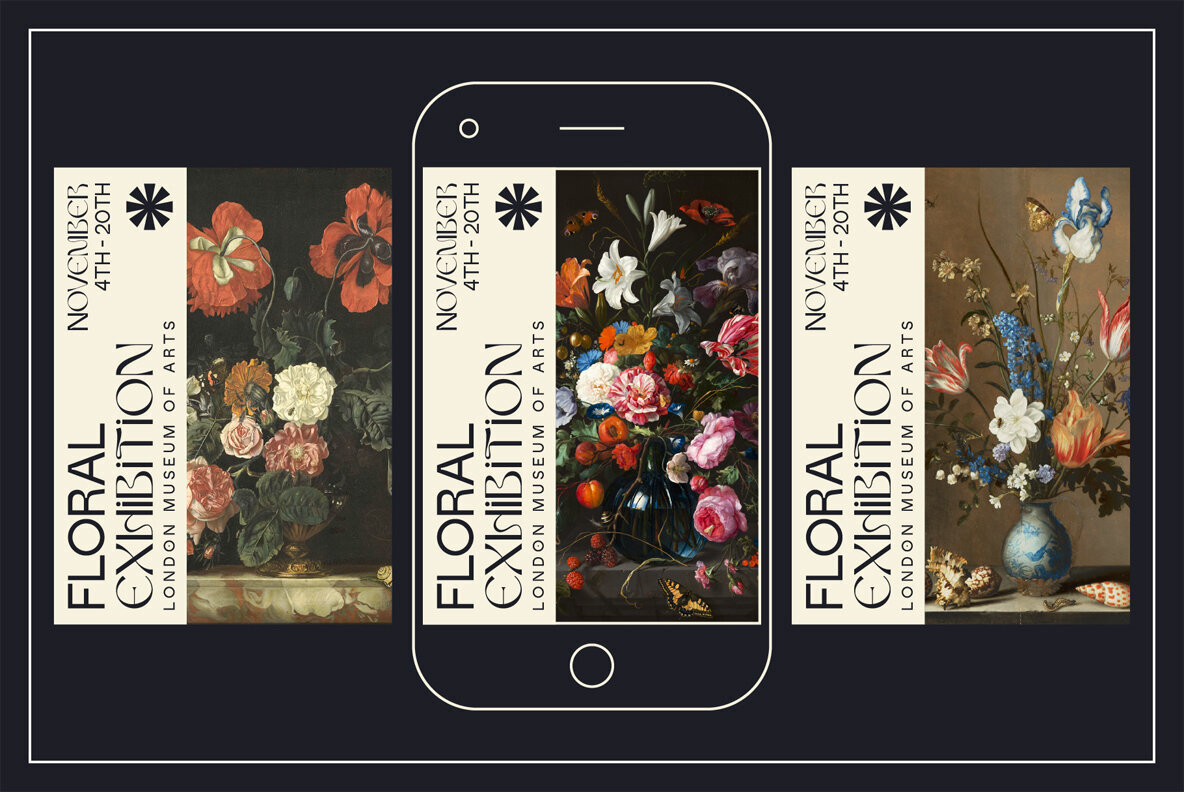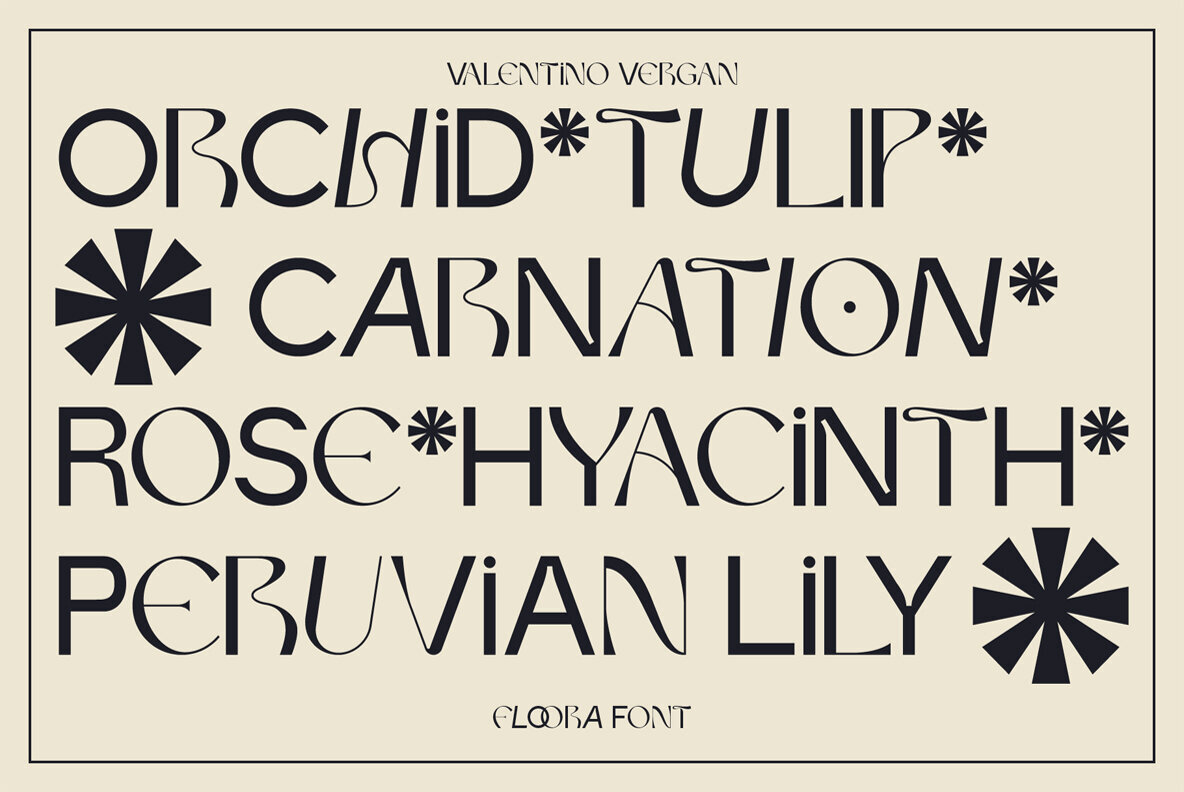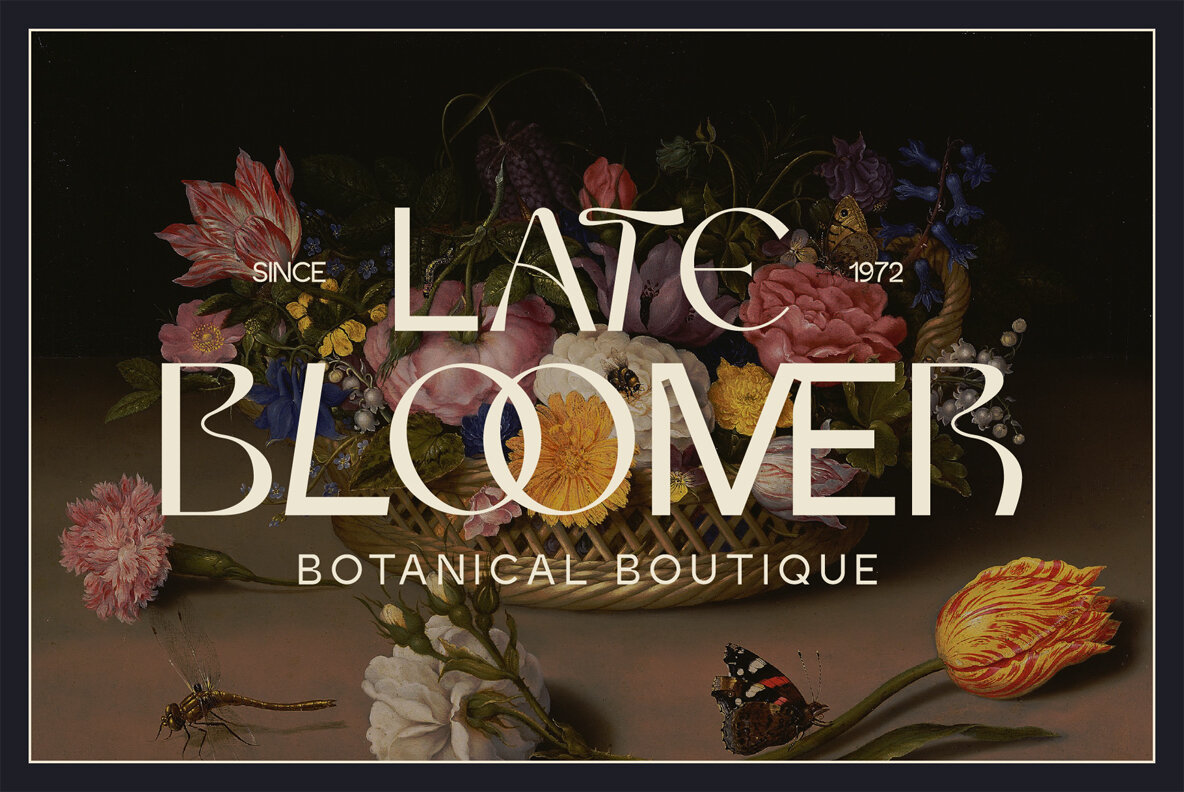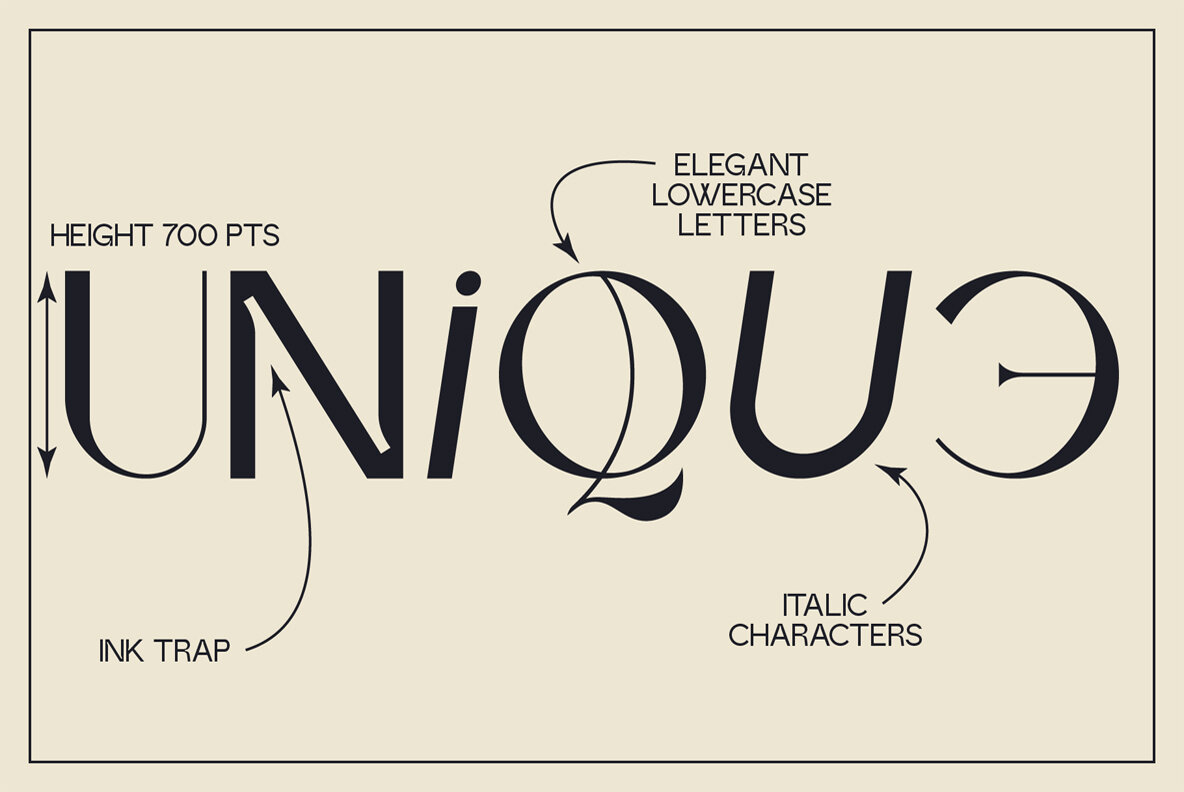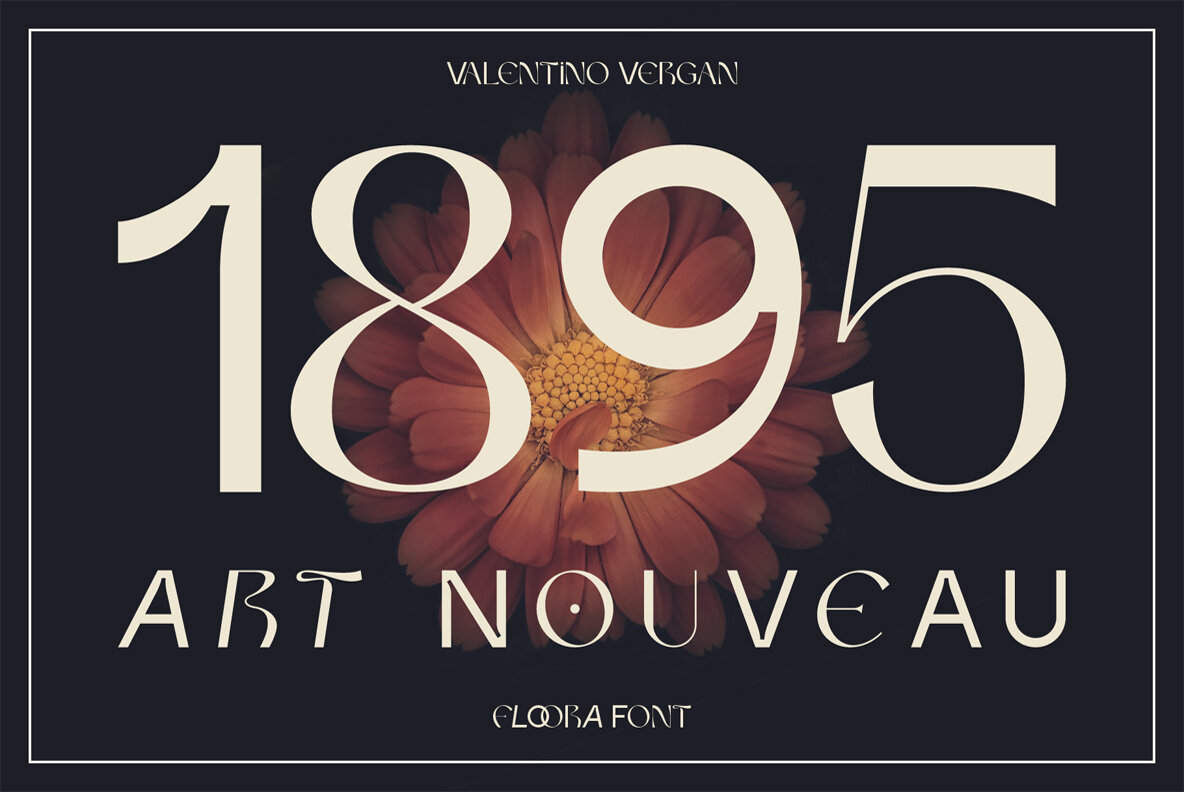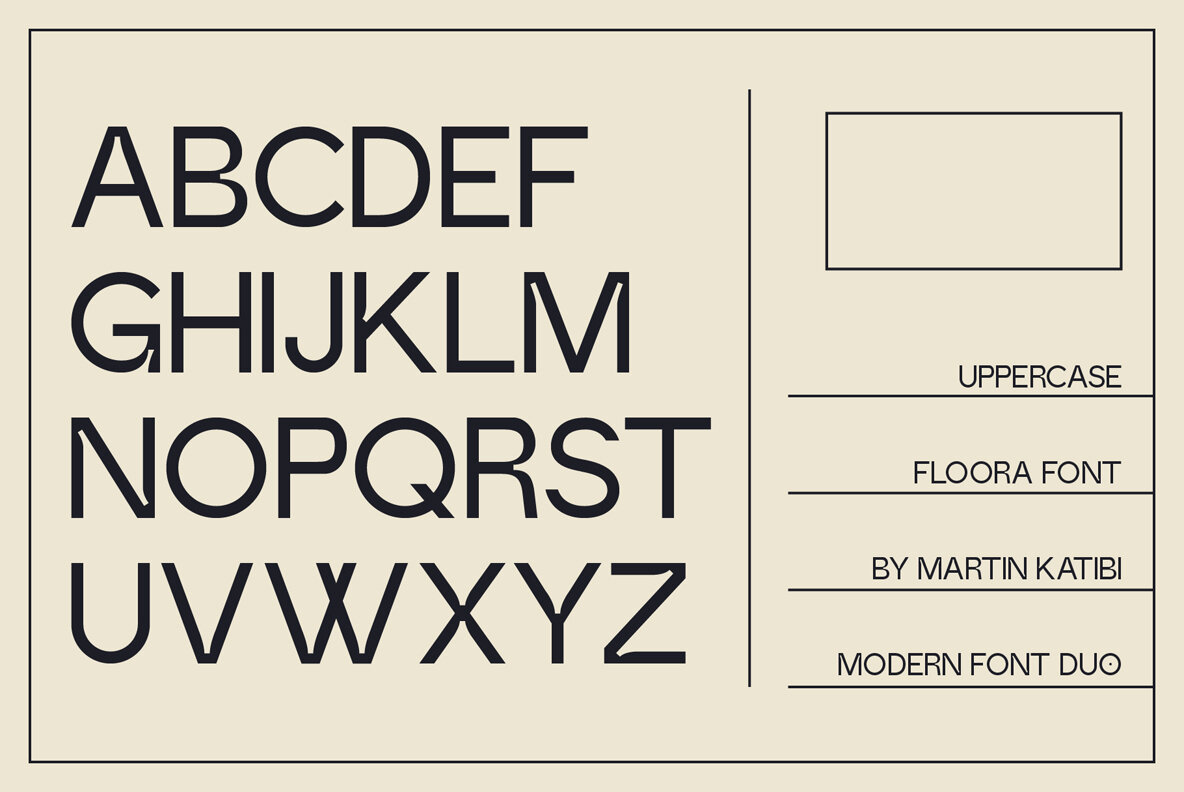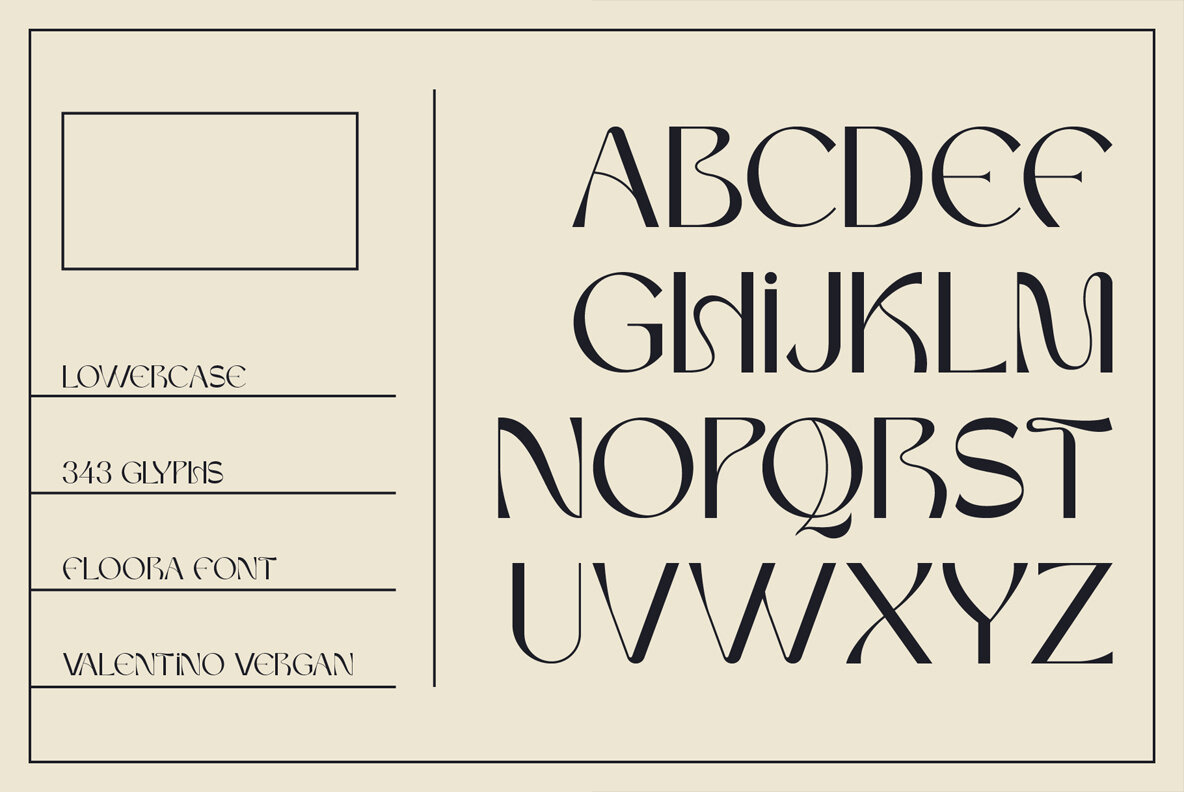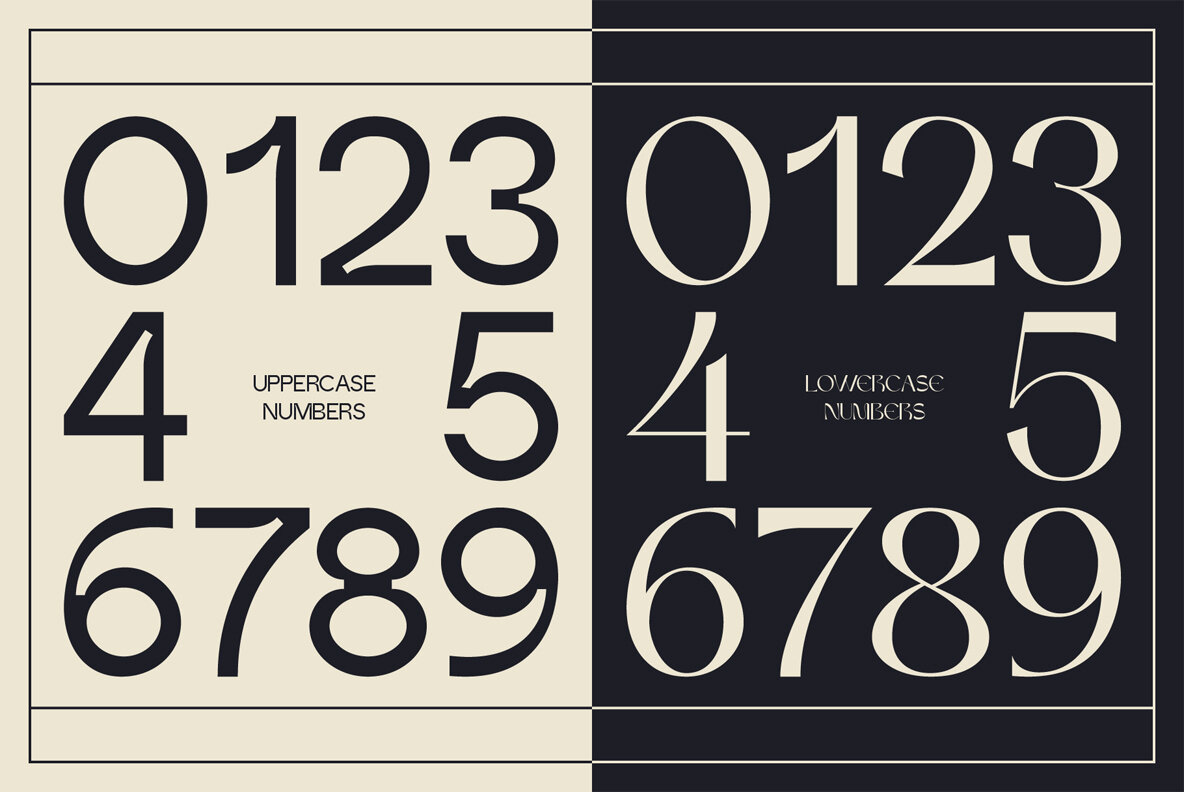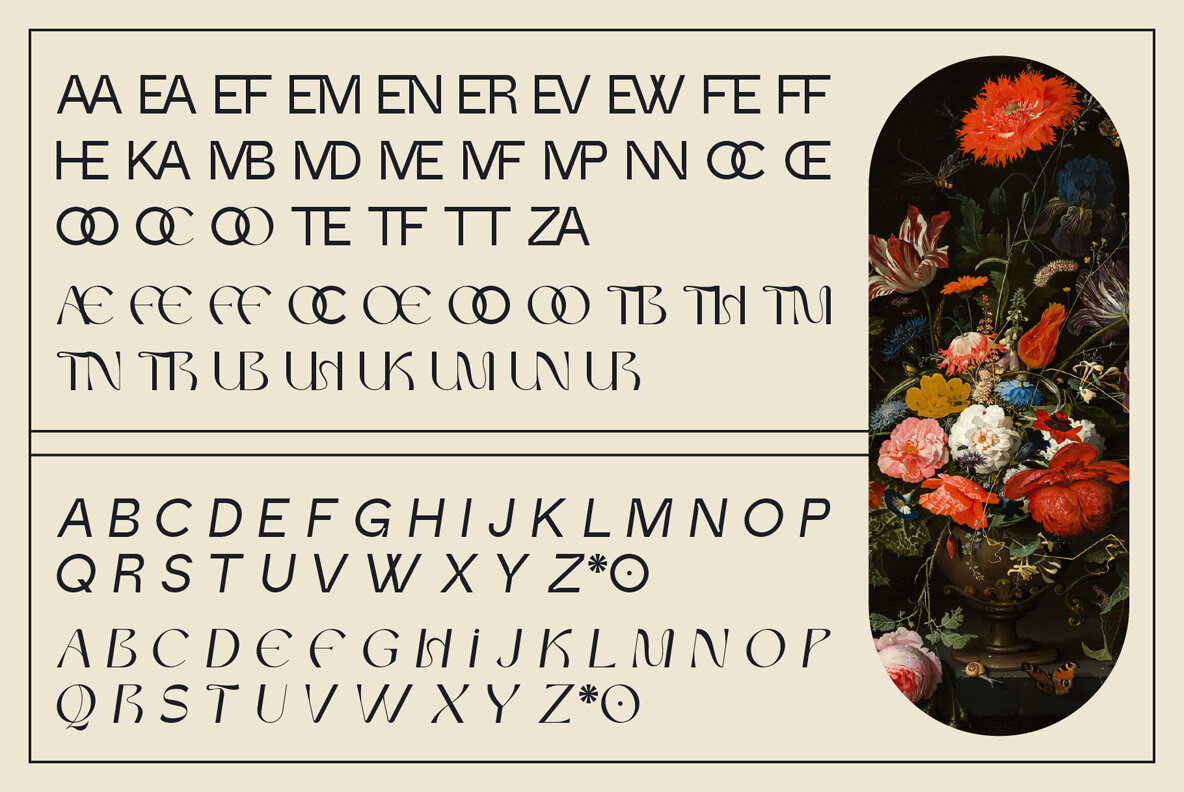
Floora Font
Floora Regular
Floora is a modern and unique font duo that combines two different styles to create a distinct look. With its polished uppercase sans serif and Neue Nouveau-style lowercase, Floora is perfect for adding a trendy touch to your designs. Plus, with italic letters, ligatures, alternative characters, and multi-language support, this font is versatile and easy to use. Use Floora for posters, magazines, logos, social media posts, websites, and more.
If you want something modern and unique for your next project, look no further than Floora.